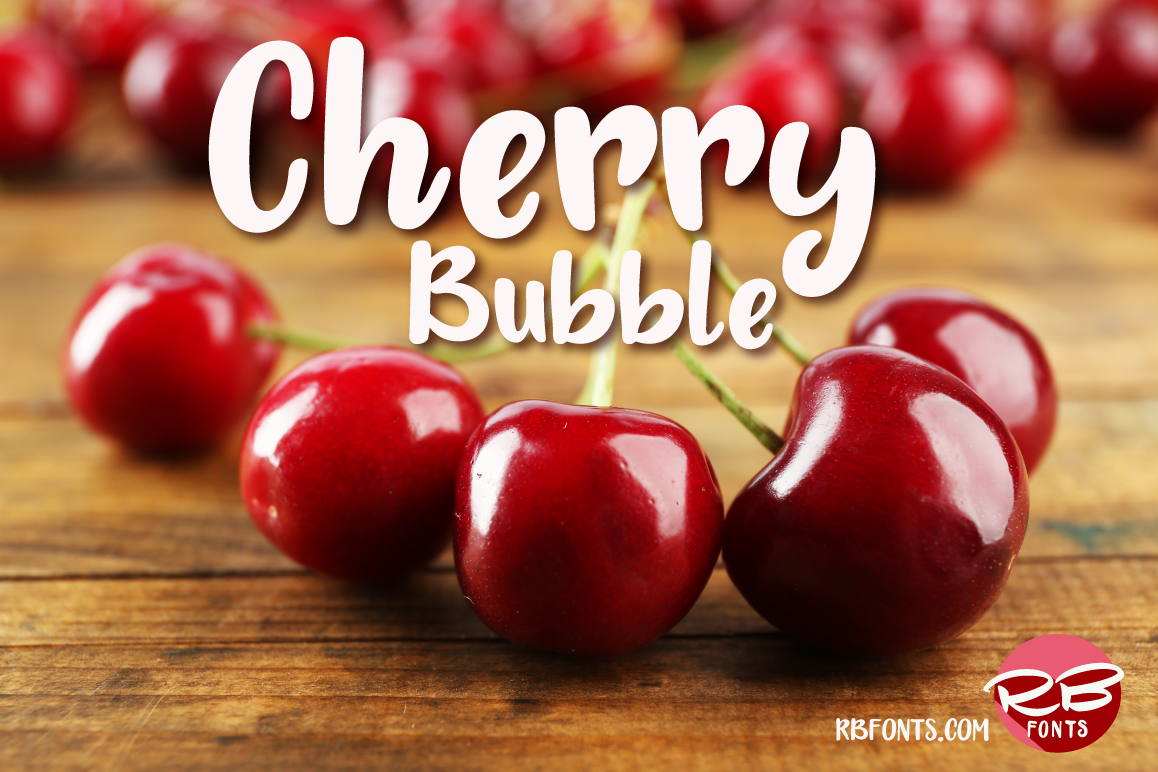
Cherry Bubble font
CherryBubble-Regular
A hand drawn, bold, organic sans serif font. You can create beautiful, cheerful and fun looking hand made typography with it. Cherry Bubble is perfect for all your creative projects wether it be * fun logos, * printed quotes, * invitations, * greeting cards,* Instagram posts, * products, packaging, * blog headers etc.Happy creating and have fun!
A hand drawn, bold, organic sans serif font. You can create beautiful, cheerful and fun looking hand made typography with it. Cherry Bubble is perfect for all your creative projects wether it be